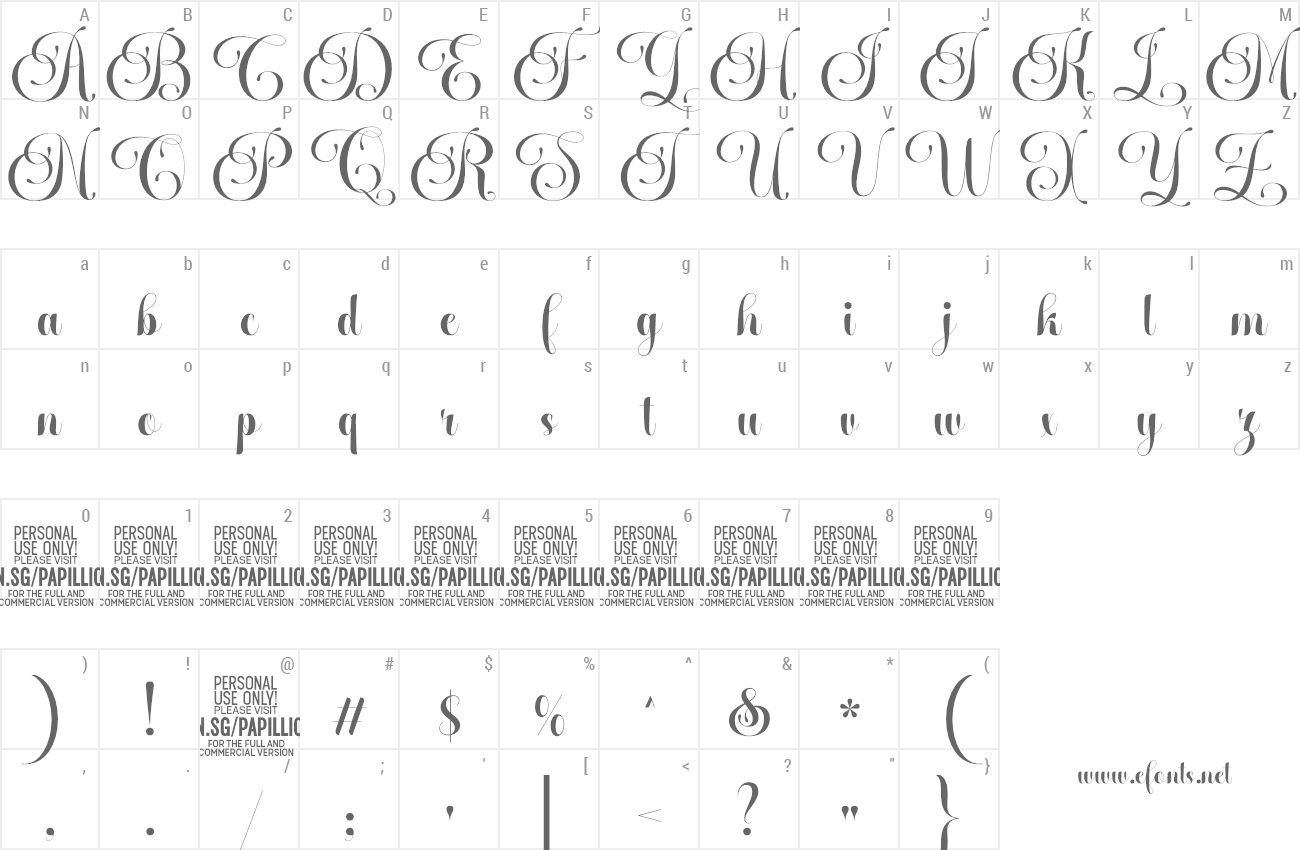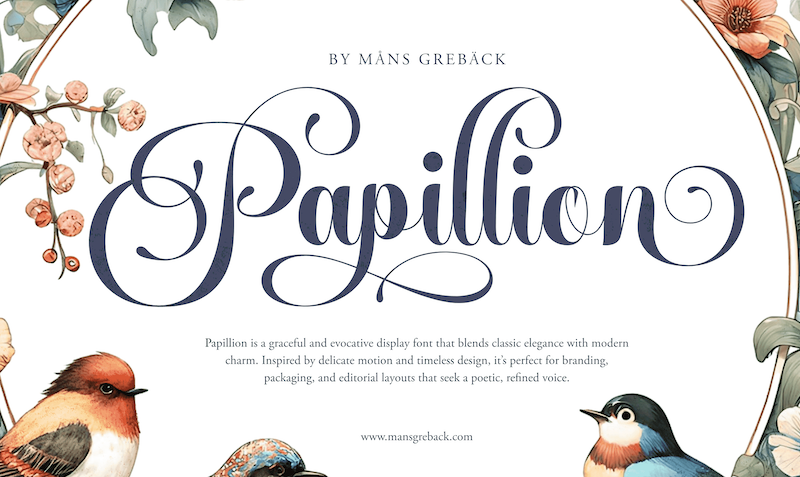
| Font name: | Papillion |
NOTE: This font is for PERSONAL USE ONLY! To purchase a commercial license, visit: https://www.mansgreback.com/product/papillion Papillion is an elegant and ornamental script, infused with the spirit of French sophistication and theatrical flair. With its refined curves and decorative loops, it evokes the flutter of butterfly wings in motion, balancing formal structure with expressive movement. For questions, please visit https://mansgreback.com/faq |